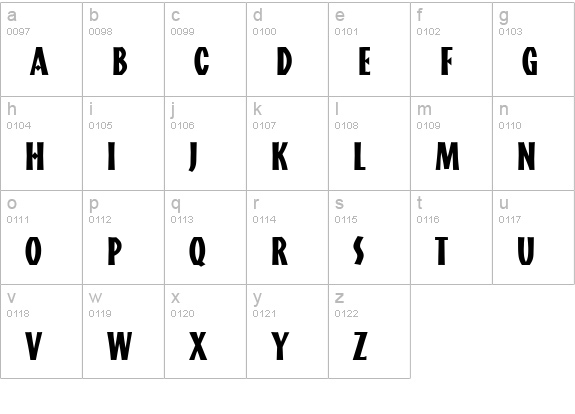
Diplomat Font Details
Diplomat font exudes elegance and sophistication with its classic and refined aesthetic. This timeless typeface is perfect for projects that require a touch of prestige and professionalism. Its graceful letterforms and well-balanced proportions make it suitable for a wide range of design applications, from formal invitations to corporate branding. The Diplomat font is not only visually appealing but also highly versatile, making it a go-to choice for designers seeking a versatile and reliable typeface. Whether used in print or digital media, this font conveys a sense of elegance and authority that is sure to elevate any project. As an added bonus, the Diplomat font is available for free download at FontsMarket.com, allowing designers to access this premium typeface without any cost. With its combination of style, versatility, and accessibility, Diplomat font is a must-have addition to any designer's toolkit.